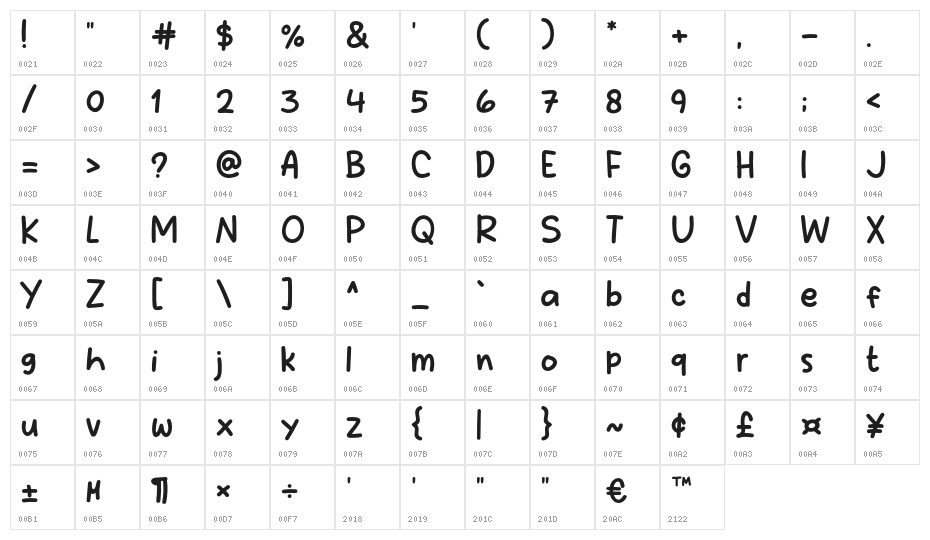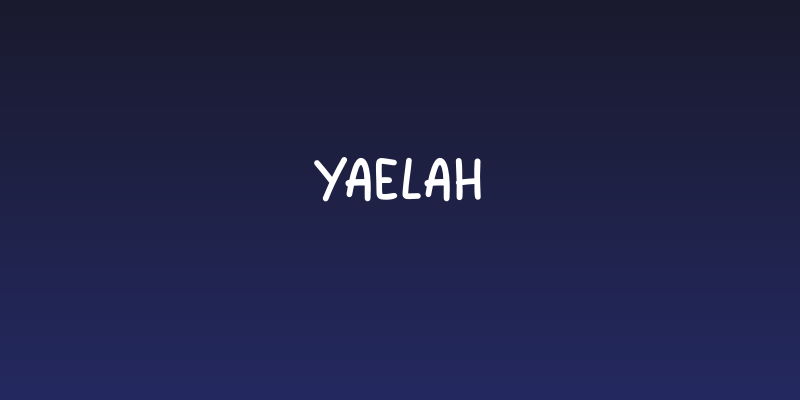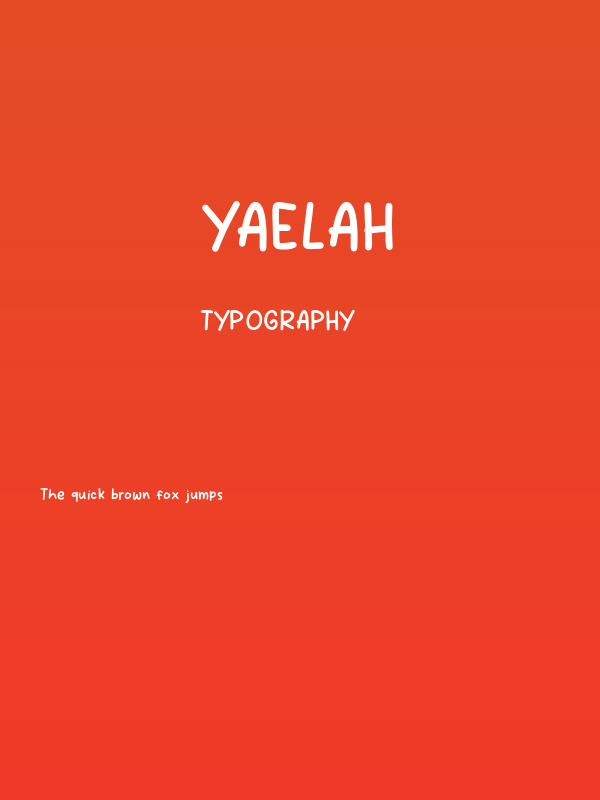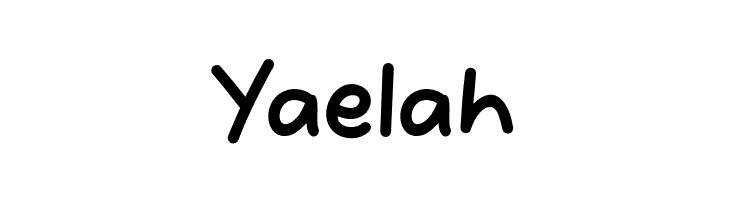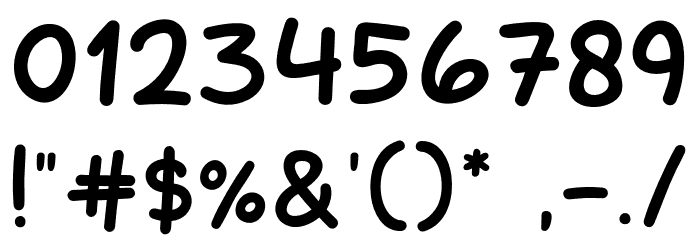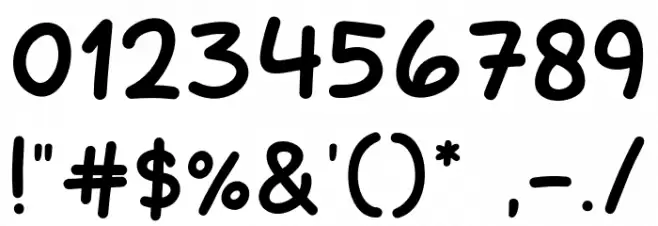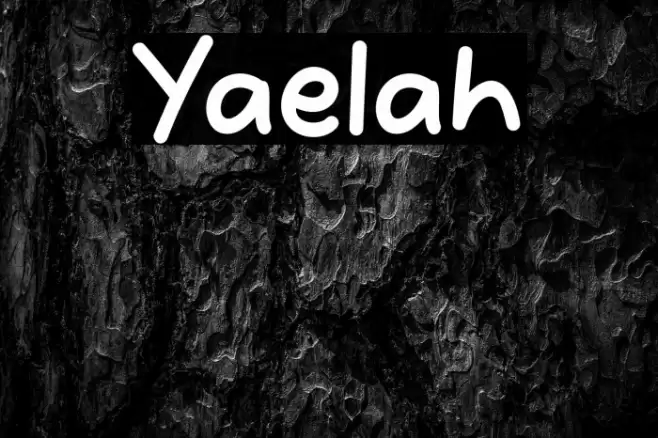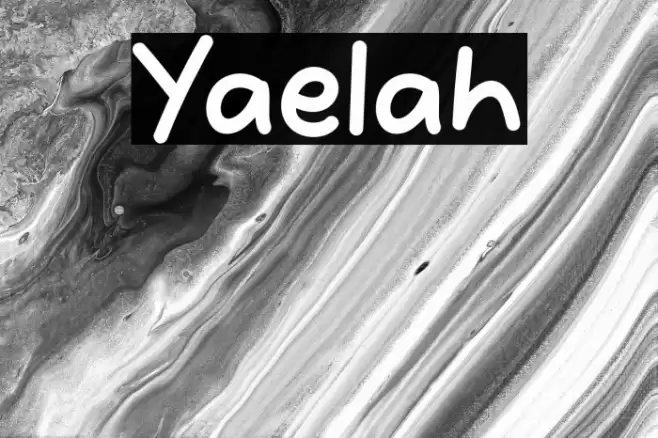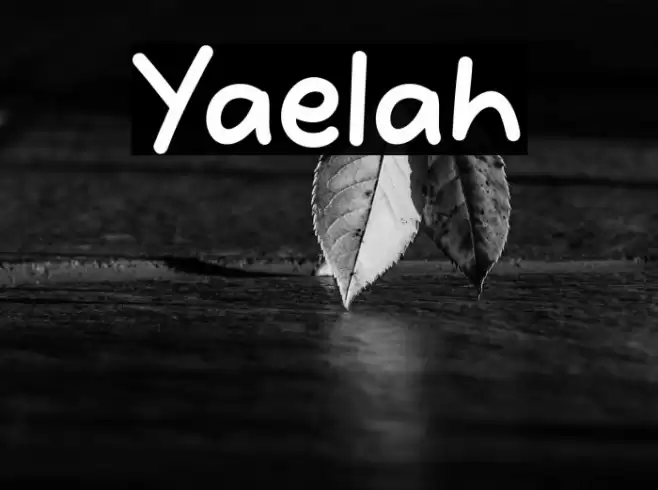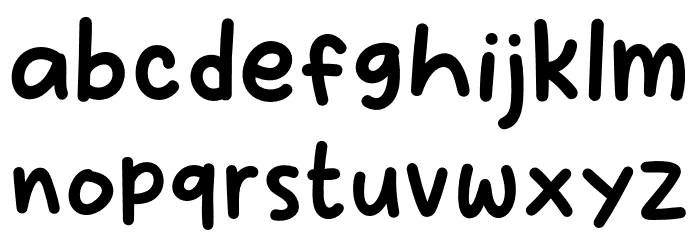
Yaelah Font
Yaelah Description
This playful and rounded font exudes a friendly and approachable vibe. The characters are bold and slightly irregular, giving them a hand-drawn appearance that adds a touch of whimsy. The uppercase and lowercase letters maintain a consistent style, with smooth curves and a uniform stroke width. The numbers and special characters follow the same design principles, ensuring a cohesive look across all glyphs. This font is perfect for projects that require a casual and informal tone, such as children's books, playful branding, or creative posters.
| Overall Style | Playful |
| Use Case | Headlines, Logos, Informal Text |
| Proposed Projects | Ideal for children's books, playful branding, creative posters, and informal designs. |